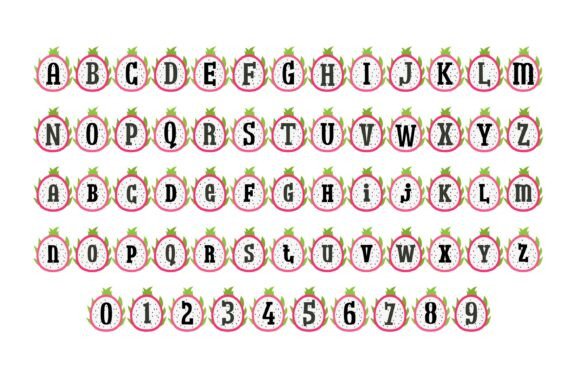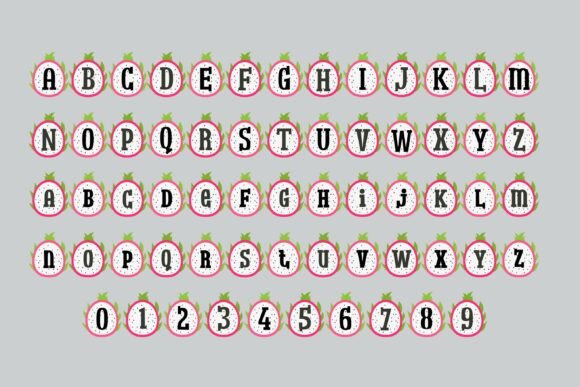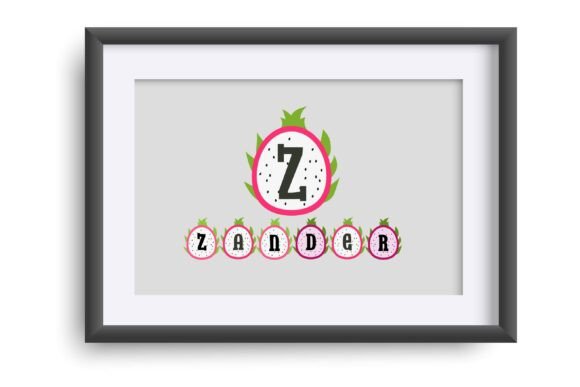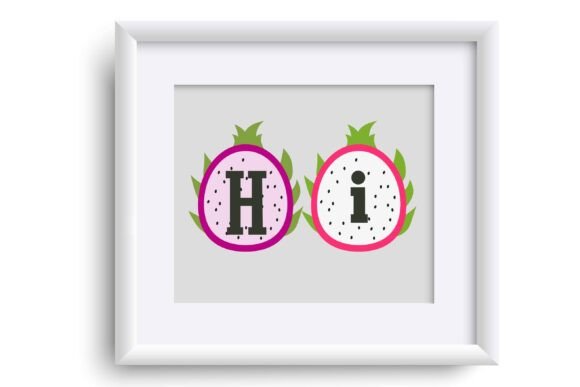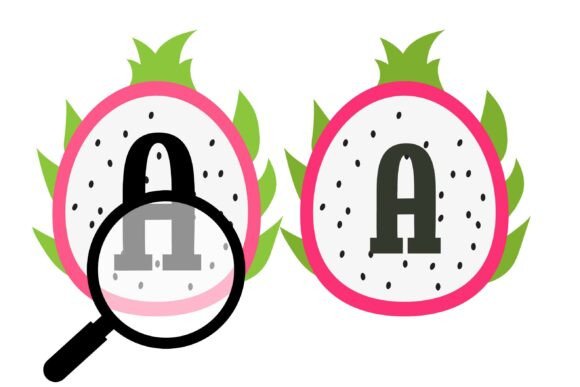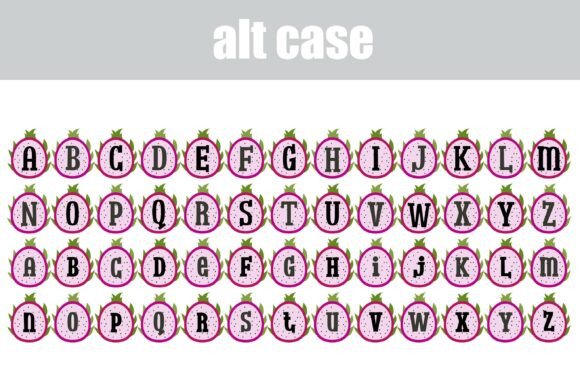
Bring an Exotic Edge to Your Designs with Dragon Fruit Font
Are you tired of using the same old fonts in your designs? Do you want to add a touch of exoticism and vibrancy to your work? Look no further than the Dragon Fruit Font, a high-impact full-color SVG font that’s inspired by nature’s most vibrant fruit.
What is Dragon Fruit Font?
Dragon Fruit Font is a unique and bold typeface that features clean-lined slab serif letterforms set inside hand-illustrated dragon fruit slices. The font is complete with neon pink rinds, lush green scales, and realistic black seed textures, giving it a truly tropical feel.
The Inspiration Behind Dragon Fruit Font
The Dragon Fruit Font is inspired by the dragon fruit, a vibrant and exotic fruit that’s native to Central and South America. The fruit is known for its bright pink or yellow skin, and its green scales, which give it a unique and eye-catching appearance.
Key Features of Dragon Fruit Font
- Hand-illustrated dragon fruit slices: Each letterform is carefully illustrated with intricate details, giving the font a truly unique and hand-crafted feel.
- Neon pink rinds: The font features bright and vibrant neon pink rinds, which add a pop of color to any design.
- Lush green scales: The green scales on the dragon fruit slices give the font a natural and earthy feel.
- Realistic black seed textures: The font features realistic black seed textures, which add depth and dimension to the design.
- Full-color SVG: The font is available as a full-color SVG file, making it easy to use and edit.
Use Cases for Dragon Fruit Font
Dragon Fruit Font is perfect for designers and crafters who want to add a touch of exoticism and vibrancy to their work. Here are some use cases for the font:
- Independent juice bar branding: The font is perfect for juice bars and smoothie shops that want to stand out from the crowd.
- Exotic fruit market signage: The font is ideal for fruit markets and grocery stores that want to add a touch of tropical flair to their signage.
- Summer festival flyers: The font is perfect for summer festival flyers and posters that want to capture the fun and carefree spirit of the season.
- High-energy “island-vibe” social media headers: The font is great for social media headers that want to add a touch of tropical flair and energy.
Why Choose Dragon Fruit Font?
So why choose Dragon Fruit Font over other fonts? Here are a few reasons:
- Unique and eye-catching: The font is truly unique and eye-catching, making it perfect for designers who want to stand out from the crowd.
- High-impact: The font is high-impact and attention-grabbing, making it perfect for headlines and titles.
- Tropical and exotic: The font has a tropical and exotic feel that’s perfect for designs that want to evoke a sense of warmth and sunshine.
In conclusion, Dragon Fruit Font is a unique and eye-catching font that’s perfect for designers and crafters who want to add a touch of exoticism and vibrancy to their work. With its hand-illustrated dragon fruit slices, neon pink rinds, lush green scales, and realistic black seed textures, this font is sure to make a statement. Whether you’re designing for an independent juice bar, exotic fruit market, summer festival, or social media header, Dragon Fruit Font is the perfect choice.